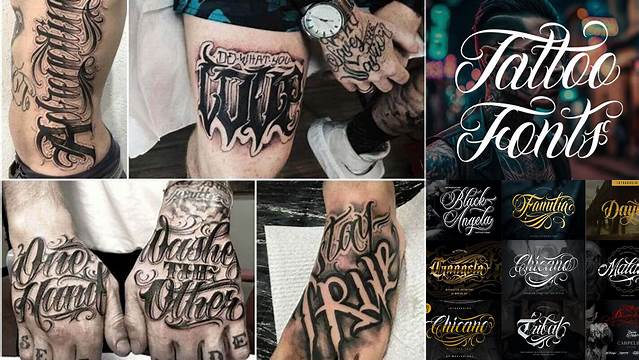
Awesome Tattoo Lettering Fonts: Your Ultimate Guide
Hey guys, are you ready to dive into the awesome world of tattoo lettering fonts? Finding the perfect font is a crucial step in the tattoo process, as it can totally make or break your design. Choosing a font that reflects your personality and complements your chosen tattoo style is key. This guide will explore some of the coolest lettering fonts out there, perfect for your next ink adventure. From classic scripts to bold block letters, we'll cover everything you need to know to choose the perfect font. Ready to get inspired? Let's jump in!
1. Understanding Tattoo Lettering Styles: A Quick Overview
Before we get into the specific fonts, let's quickly cover the different styles of tattoo lettering. Understanding the styles will help you narrow down your choices and find a font that really speaks to you. First up, we have classic scripts. These fonts often feature elegant, flowing lines, perfect for names, quotes, or other sentimental phrases. Think of them as timeless and versatile, adding a touch of sophistication to any design. Then, we've got bold block letters, which are strong, impactful, and easy to read. These are great for highlighting important words or phrases, and they often have a more masculine or edgy feel. Next, we have serif fonts, which are characterized by small strokes at the ends of the letters. These fonts can give a classic and vintage feel, but can also add a touch of elegance and refinement. You also have to consider sans-serif fonts. These fonts are minimalist and modern, and they are characterized by the absence of those tiny strokes. These fonts are often clean and legible, which is ideal for a design that prioritizes clarity. Finally, we have decorative fonts. These fonts can include anything from fancy flourishes to unique symbols and are ideal for adding a personalized touch to your tattoo. You could choose your favorite one and make a good design for your tattoo. Exploring these styles is essential to determine what best suits your desired aesthetic.
1.1. Script Fonts: The Elegance of Handwritten Styles
Script fonts are the epitome of elegance and grace, providing a sense of timelessness and personalization to any tattoo design. These fonts mimic the fluidity of handwriting, lending a classic, romantic touch to names, quotes, and other meaningful phrases. When we dive into script fonts, there are a lot of variations. Some scripts have a very delicate and flowing appearance, with thin lines and subtle curves. These are ideal for creating a sense of intimacy and grace, perfect for names or short quotes. Others have a more bold and dramatic appearance, with thicker lines and more pronounced flourishes. These fonts can make a statement, adding a touch of personality and flair to your design. You can also mix and match script fonts with other elements, such as illustrations or symbols. This can add depth and visual interest to your tattoo. The beauty of script fonts lies in their ability to convey a variety of emotions. Whether you're looking for a design that evokes romance, nostalgia, or simply a touch of elegance, a script font can be the perfect choice. Remember, the best script font is one that feels personal and meaningful to you, reflecting your individual style and story. Consider the length of your text, the desired placement of the tattoo, and your overall aesthetic to find the perfect match.
1.2. Block Letter Fonts: Bold and Statement-Making Designs
Block letter fonts are the epitome of bold, strong, and unapologetic designs, commanding attention with their clear, concise forms. These fonts are characterized by their straight lines, sharp angles, and unwavering presence, which is ideal for impactful statements and highlighting important words or phrases. Their versatility means they can be used in a wide range of tattoo styles, from classic to contemporary. Think about the different characteristics that block letter fonts can exhibit. Some are clean and minimalist, with a focus on legibility and simplicity. These are great for a modern look, where clarity is key. Others have a more rugged or vintage feel, with slight imperfections or distressed textures. This type of font can add a touch of personality and character to your design. Block letters can also be customized with various effects, such as shadows, outlines, or 3D effects, to enhance their visual appeal and make them stand out. When choosing a block letter font, it's important to consider the overall aesthetic of your tattoo. Do you want a clean and modern look, or a bold and edgy design? Once you have a clear idea of the design, you can then choose a font that complements your style.
1.3. Serif vs. Sans-Serif: Choosing the Right Font for Your Tattoo
When it comes to choosing a tattoo font, the decision between serif and sans-serif fonts is an important one. These two fundamental categories define the character and style of your text. Serif fonts are characterized by their small strokes, or serifs, at the ends of the letters. These fonts typically have a more classic and traditional feel, often associated with elegance, sophistication, and a touch of vintage charm. Sans-serif fonts, on the other hand, lack those small strokes, resulting in a clean, minimalist, and modern aesthetic. The absence of serifs makes these fonts easy to read and can offer a bold, contemporary look. The best choice depends heavily on the overall aesthetic you are going for. If you are looking for a traditional or vintage feel, a serif font might be your best bet. If you want a modern, clean look, then a sans-serif font is the way to go. Consider the readability of the font, especially if your tattoo will involve a long text. Choose the font that best communicates your message and reflects your personal style.
2. Top Cool Lettering Fonts for Tattoos
Let's get into some specific fonts, shall we? Here are some of the coolest lettering fonts that are perfect for tattoos. These fonts are popular for a reason, and you're sure to find something that you love. Remember, it's always best to consult with your tattoo artist. They can help you select the perfect font that suits your design and body placement.
2.1. Script Fonts: Popular and Trending Choices
Script fonts are the most popular for tattoos, providing a personal and artistic touch. One of the most popular choices is Brush Script MT, known for its bold and expressive strokes. This font is ideal for quotes and names. Another popular font is Blackletter. This font is also used for script tattoos. It has a unique and calligraphic look. Shelley Allegro is another fantastic option. It has a flowing and feminine aesthetic that is perfect for elegant designs. Dancing Script is a light and carefree option, making it ideal for a playful tattoo. Each font offers a unique flavor and character, so you can find the best one for your style and personal preferences. When choosing a script font, consider the length of your text and the placement of your tattoo. A script font will require a professional tattoo artist who is experienced in lettering. With a good design, you can create a beautiful, one-of-a-kind tattoo.
2.2. Bold Block Letter Fonts: For Impactful Designs
If you want a bold and impactful tattoo, then block letter fonts are the way to go. Helvetica is a classic choice, famous for its clean lines and legibility. This font is versatile and looks great on any design. Another great option is Impact, which is a strong and commanding font. This font makes a statement and is perfect for highlighting important words or phrases. Bebas Neue is a sans-serif font that offers a modern and clean look. It is ideal for a minimalist design. Arial Black is another great choice. It offers a thick and bold appearance. When selecting a block letter font, think about the message you want to convey. These fonts are ideal for messages that need to be seen and understood quickly. Remember that legibility is important, so make sure that the font is easy to read, especially if the tattoo is on a smaller scale. Working with a professional tattoo artist will also help you ensure that your design is executed perfectly.
2.3. Serif Fonts: Classic and Elegant Options
Serif fonts offer a timeless elegance. These fonts feature small strokes at the end of the letters, which provide a classic and traditional appearance. Times New Roman is a traditional and reliable font, best for long text. It is perfect for classic and elegant designs. Garamond is another great choice, known for its elegant lines and refined look. It is ideal for sophisticated tattoos. Bodoni is a bold and modern serif font, known for its high contrast between thick and thin strokes. Georgia is a versatile font that is easy to read, making it ideal for various designs. When choosing a serif font, think about the overall aesthetic you're aiming for. If you want a classic and elegant design, serif fonts are a good choice. Make sure that the font you select is easy to read. Consider working with a professional tattoo artist to make sure that your design is perfectly executed.
2.4. Sans-Serif Fonts: Modern and Minimalist Choices
Sans-serif fonts are a popular choice. They have a clean and modern aesthetic with clean lines and no small strokes at the end of the letters. Helvetica is a classic choice, known for its clarity and versatility. It is great for any design. Arial is another great option. It is easy to read and offers a clean appearance. Futura is a geometric sans-serif font with a futuristic feel. It is ideal for minimalist designs. Gotham is a versatile sans-serif font with a clean and modern look. When choosing a sans-serif font, consider the overall aesthetic you're trying to achieve. These fonts are ideal for a modern and minimalist design. Make sure the font you select is easy to read, especially if your tattoo will be smaller in size. Working with a professional tattoo artist will also help you create a beautiful and long-lasting tattoo.